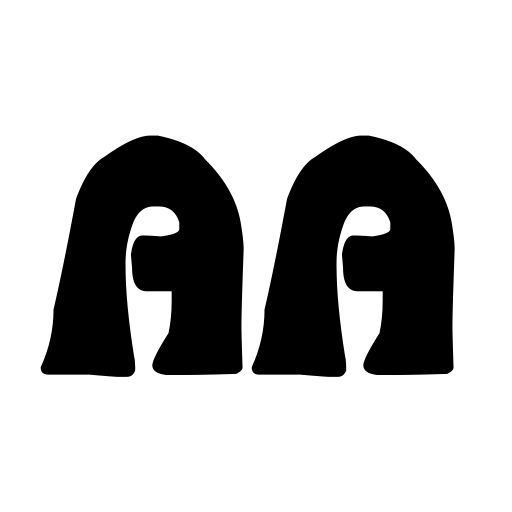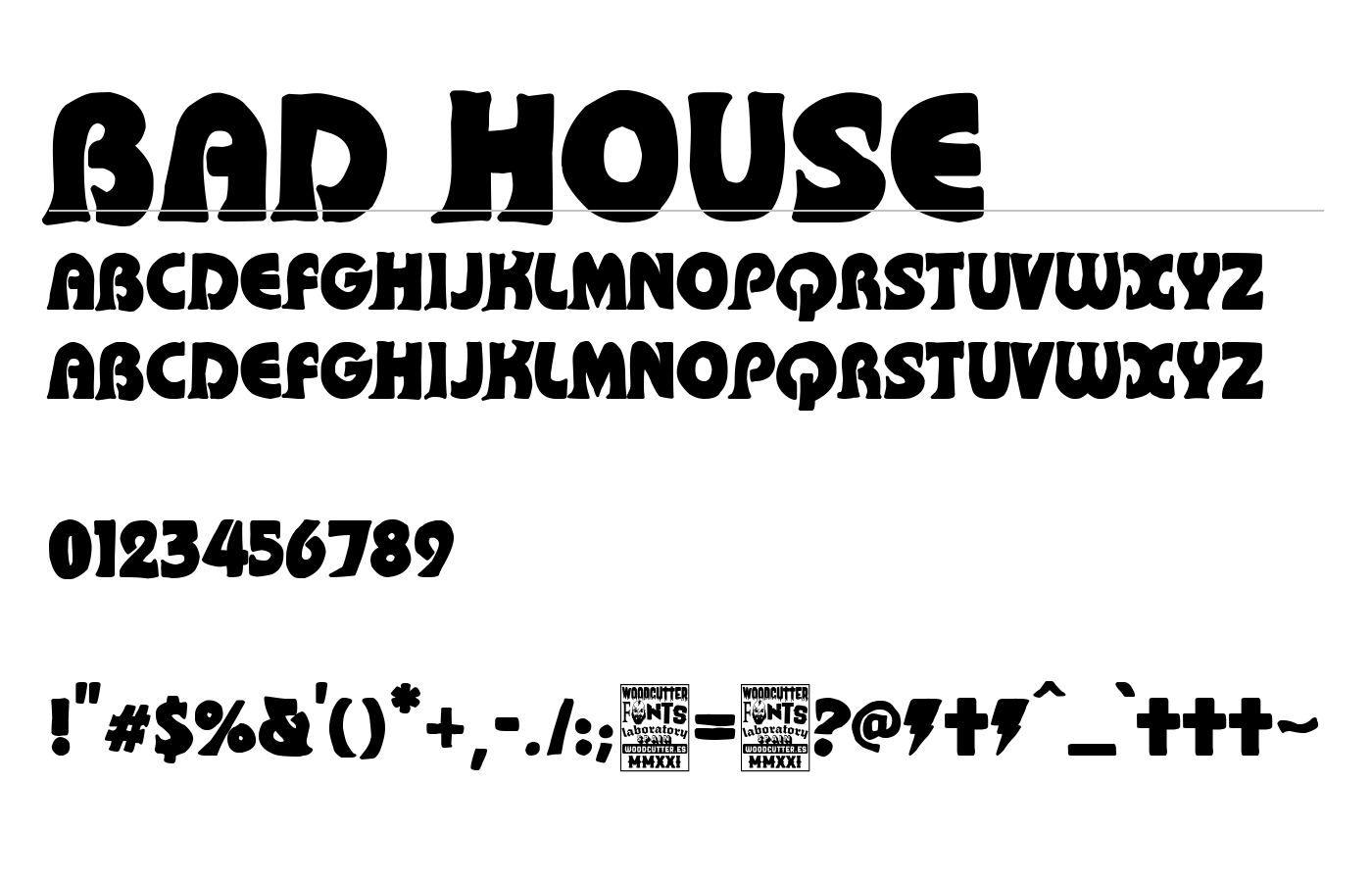
Bad House is a bold, playful display font with a chunky, irregular shape that gives it a hand-crafted, quirky feel. Its soft edges and slightly distorted letterforms make it perfect for fun, casual designs that want to stand out with personality. Ideal for posters, logos, and creative branding, this font adds a unique, approachable charm to any project.